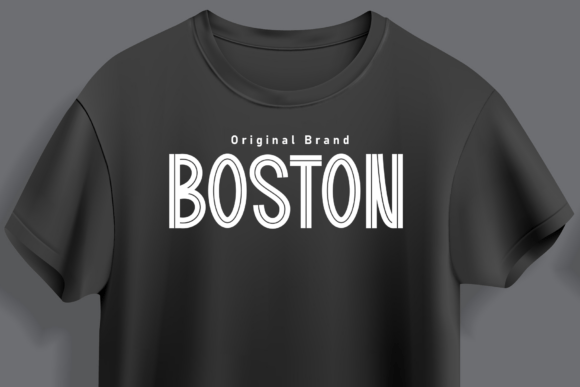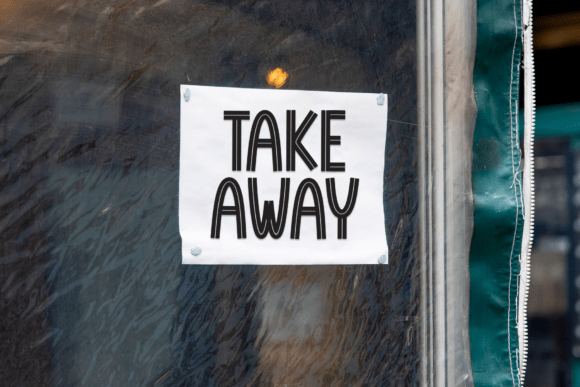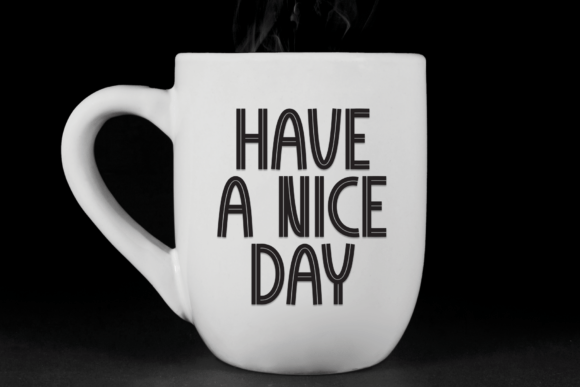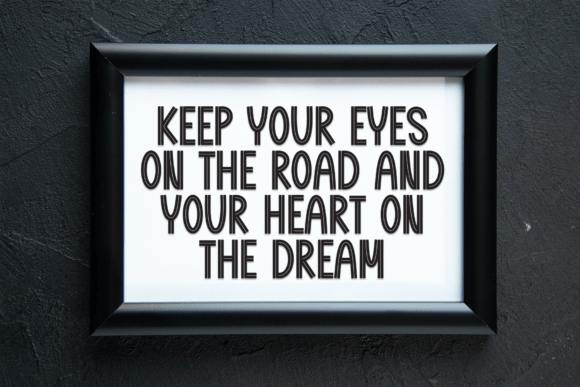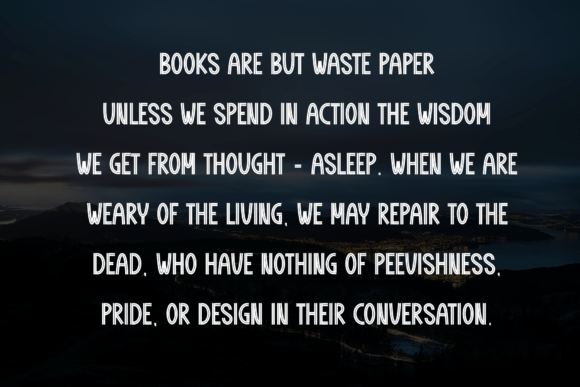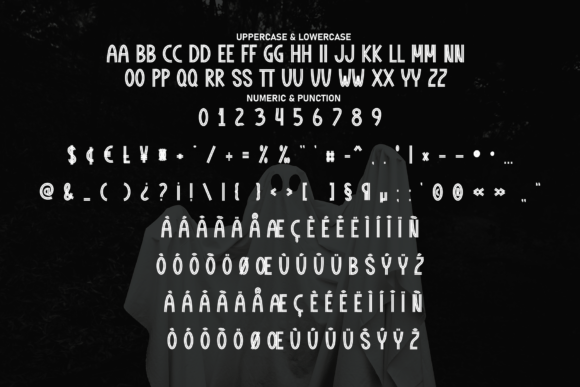
The Joy of Typography: Discovering the Magic of Ghostline Font
Have you ever found yourself staring at a blank canvas, wondering where to start? For designers, this moment is all too familiar. It’s the moment when inspiration strikes, and the right font can be the spark that sets your creativity ablaze. That’s where Ghostline Font comes in – a meticulously handcrafted display font that captures the essence of playful charm and spirited personality.
Designed to add a burst of vivacity to your designs, Ghostline Font is perfect for enchanting wedding stationery, lively greeting cards, or any artistic endeavor that desires a hint of delight. With its unique blend of captivating allure and energetic fashion, this font provides every design piece with a distinct style-oriented edge, all while exuding an irresistible jolly charm.
Ghostline Font Key Features
- Font Family: Ghostline Font offers a range of font families, including sans-serif, serif, and script styles, making it versatile for various design applications.
- Unique Characteristics: Features a unique blend of modern and vintage elements, with subtle texture and subtle contrast, giving it a distinctive look that sets it apart from other fonts.
Ghostline Font Review
Overall, I found the Ghostline font to be quite unique and visually appealing ✨. The combination of modern and minimalist elements creates a clean, sophisticated look that’s perfect for various design projects.
The Ghostline font excels in the following areas:
- Legibility: The font is highly legible, making it suitable for both body text and headings.
- Style versatility: Ghostline can be used in a wide range of designs, from corporate to creative projects.
However, I did encounter some limitations ⚠️:
- Font weight range: The Ghostline font has a limited range of font weights, which might be a concern for designers who need more options.
Despite these limitations, I think the Ghostline font is a solid choice for designers who value its unique style and clean design. While it may not be the most comprehensive font, it’s well-suited for projects where a modern, minimalist aesthetic is desired.
Getting the Most Out of Ghostline Font
To get the most out of Ghostline font, use it in conjunction with bold or italic styles to create a striking visual effect.
Ghostline font is commonly used in:
- Logo design
- Business cards
- Marketing materials
- Typography-based designs
Alternatives to Ghostline Font
Great Vibes Font is a modern, elegant script font that is perfect for creating a sophisticated and stylish look. It is ideal for use in branding, invitations, and other high-end designs. Compared to Ghostline Font, Great Vibes Font has a more refined and polished appearance, making it suitable for formal and professional applications.
Pacifico Font is a beautiful, cursive script font that exudes a sense of relaxation and calmness. It is perfect for use in designs that require a laid-back and casual tone, such as magazines, brochures, and websites. Unlike Ghostline Font, Pacifico Font has a more fluid and organic feel, making it ideal for designs that need to convey a sense of movement and flow.